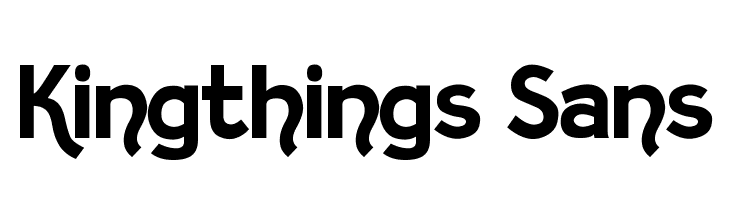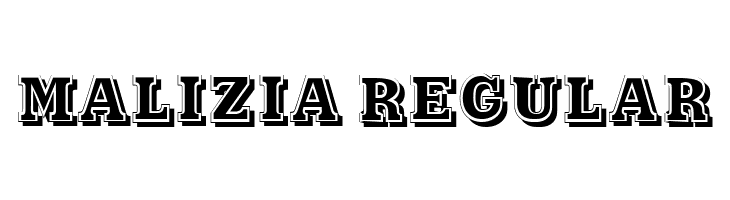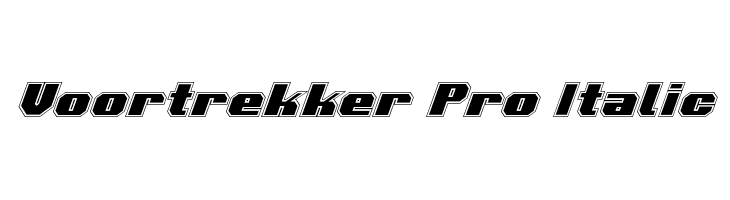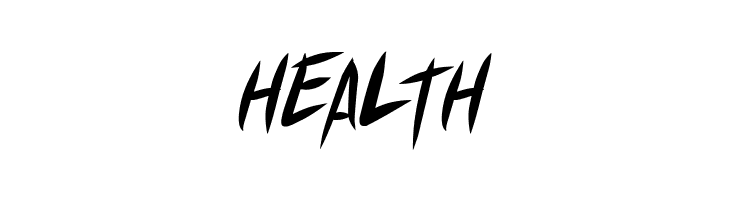
A bold, italicized font with outlined characters and a dynamic, impactful style.
( Fonts by Christopher Hansen )
( Fonts by www.kimberlygeswein.com - Kimberly Geswein )
A playful, decorative font with whimsical accents and bold characters.
A bold, decorative font with a vintage, three-dimensional style.
( Fonts by Daniel Gauthier )
( Tama Putra - be.net/tmptr )
A bold, jagged font with dynamic, energetic styling.
A bold, italic, futuristic font with sharp angles and a dynamic style.